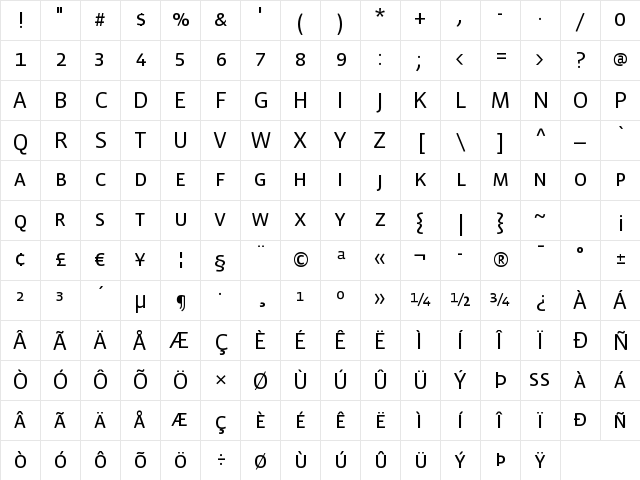
VistaSansSCBook Regular
Foundry: Xavier Dupre
Designer: Xavier Dupre
Year: 2005 (Mon, 2nd May 2005)
Design Context for VistaSansSCBook
VistaSansSCBook is a composed and adaptable typeface that performs quietly and consistently across a wide range of design contexts.
Who designed the VistaSansSCBook Regular font?